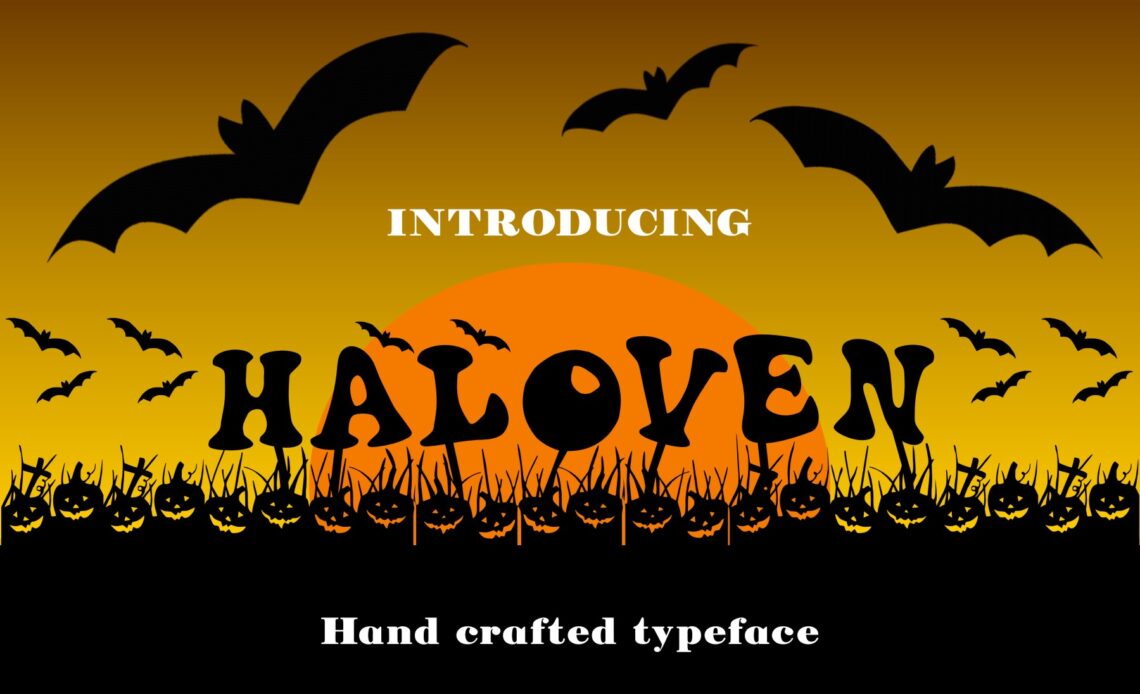
Introducing Haloven Font, the spellbinding font that will cast a magical spell on your Halloween designs!
Prepare to be captivated by its enchanting characters, meticulously designed to conjure up an aura of mystery and intrigue. From its haunting capitals to its enigmatic numbers, Haloven Font will effortlessly elevate your creations to spine-tingling heights.
Embrace the dark allure of unlimited possibilities, where you can weave an eerie tale or craft a spellbinding invitation. Indulge in the artistry of its carefully crafted glyphs, where each stroke whispers a tale of the supernatural.
Unleash your creativity and let Haloven Font ignite the flames of your imagination. Whether you're designing for a haunting website, spine-chilling social media posts, or bewitching print materials, this font will cast a spell that will leave your audience under its enchanting allure.
So, dare to embrace the darkness and let Haloven Font guide you on an unforgettable journey into the realm of the supernatural. Its captivating characters will dance across your screen, painting a mesmerizing tapestry of Halloween wonders.